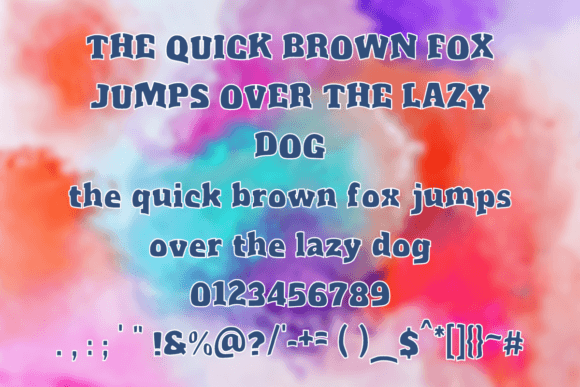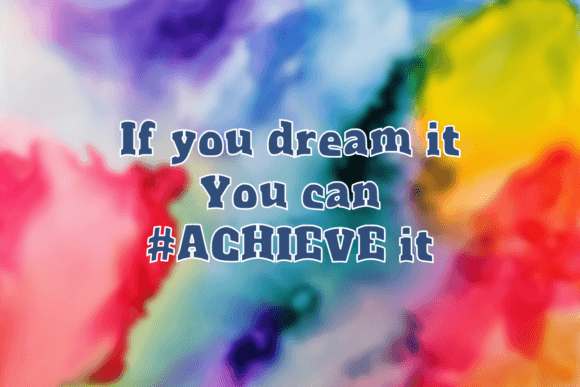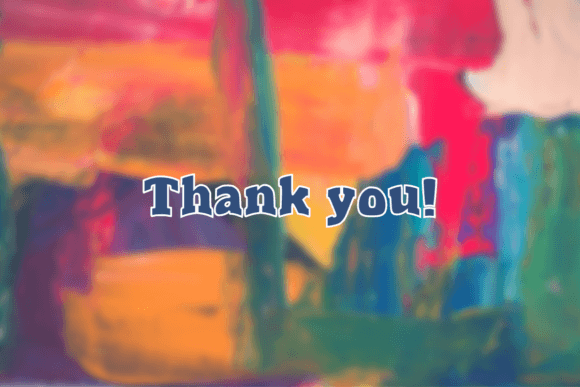
Introduction to Just Curved Font
Have you ever stared at a blank canvas, eager to bring your creative vision to life, but struggling to find the perfect font to set the tone? That’s where the Just Curved Font comes in – a quirky, bold, and whimsical display font that’s sure to add a playful touch to your next project.
Whether you’re designing an invitation, creating a logo, or crafting a headline, the Just Curved Font is the perfect design resource to add a little extra flair. Its high-quality design and transparent background make it easy to use and customize, allowing you to focus on what really matters – bringing your creative idea to life. And the best part? It’s available for a free download, making it an invaluable addition to any designer’s toolkit.
Key Features of Just Curved Font
- High-quality design resource ideal for creative projects and professional use
- Unique curved design elements and letterforms that can be used to create visually appealing and dynamic typography
- Transparency option available for a seamless integration with transparent backgrounds and custom designs
- Supports a wide range of languages and is suitable for use in various creative fields, including graphic design, digital art, and publishing
Honest Review: Just Curved Font
I recently stumbled upon the Just Curved Font, and I must say it’s been a game-changer for my design projects. As a designer, I’m always on the lookout for high-quality fonts that can add a touch of elegance to my work.
Here are some things that work well with the Just Curved Font: ✨
- High-quality design: The font is crisp, clean, and well-crafted, making it perfect for both digital and print projects.
- Transparent background: This feature allows for seamless integration with images and other design elements, giving my projects a more polished look.
However, I did encounter a few limitations: ⚠️
- Limited customization options: While the font itself is great, I found it a bit restrictive in terms of customization, which might be a drawback for some designers.
- Not suitable for bold headlines: The font is more suited for body text and smaller headings, so it might not be the best choice for bold, eye-catching headlines.
Overall, I’m really impressed with the Just Curved Font, and I would definitely recommend it to designers looking for a high-quality, free font for their creative projects.
Designing with Transparency
To use the Just Curved Font with a transparent background, select the font and use the layer blending mode to achieve the desired effect.
Tips for Getting the Most Out of Just Curved Font
For high-quality designs, use the Just Curved Font in conjunction with other design elements, such as shapes and icons. Experiment with different font sizes and styles to achieve the desired look.
The Just Curved Font is ideal for creative projects, such as:
- Logo designs
- Brochures
Alternatives to Just Curved Font
Dancing Script Font is a free download that offers a playful, handwritten feel ideal for creative projects that require a fun and energetic vibe. It features a high-quality design and can be used on various backgrounds, including transparent ones.
When to use: Dancing Script Font is suitable for casual events, social media, and creative projects that require a carefree and playful touch. It compares to Just Curved Font by offering a more playful and informal look, but with a wider range of characters.
What makes Just Curved Font a high-quality design resource?
Just Curved Font is a high-quality design resource due to its unique, curved design elements and its high level of detail. The font is carefully crafted to provide a professional look and feel, making it suitable for a wide range of creative projects, from branding and advertising to editorial and publishing.